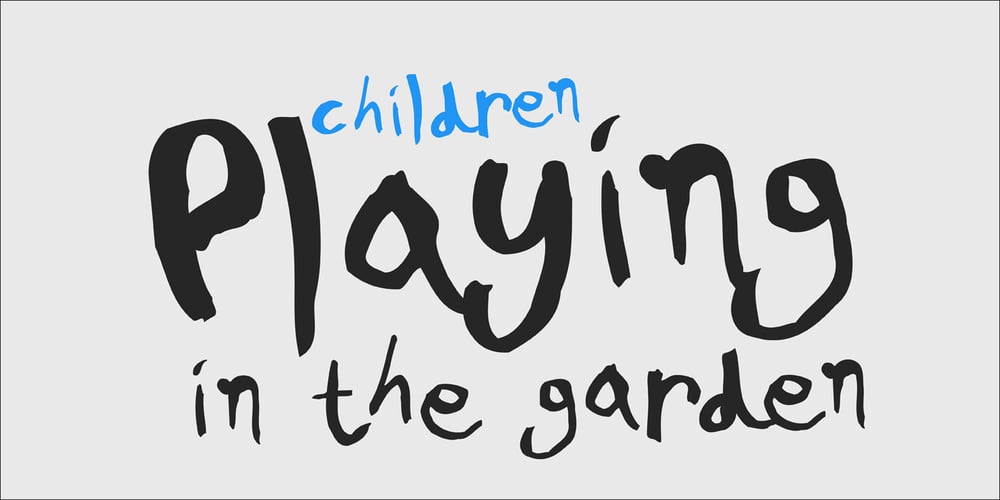
PF Kids Pro Font Family was designed by Alexandros Papalexis and published by Parachute. PF Kids Pro contains 3 styles and family package options. This is not just a typeface inspired by a kid’s first attempts to write. This is in fact how exactly a kid writes. Alexandros Papalexis was born again kid when he became a father. This series came about while designing his daughter’s birthday invitations. Since its first release, it has been constantly on our most wanted list. You step into a supermarket, a bookstore or a clothing store and you see tens of products using this typeface. Anything from baby products, food, clothing, children’s books and magazines, print and TV campaigns, you name it. But don’t just stick to the name. Every single weight serves the right purpose. This is why this typeface has also been used extensively for grown-up market. Recently, it was upgraded to include Latin, Greek and Cyrillic. Furthermore, the accompanied series of pictograms was completed and loaded with 125 western and eastern European pieces.